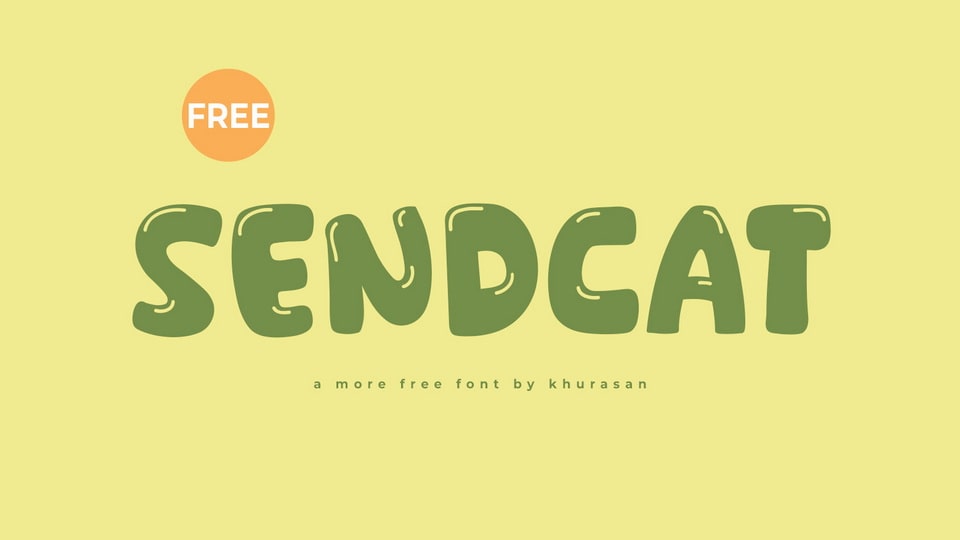
Download Sendcat font, a vibrant and playful typeface that brings a touch of animated whimsy to your designs with a glossy finish. This cartoon font is perfect for projects seeking a lighthearted and attention-grabbing aesthetic.